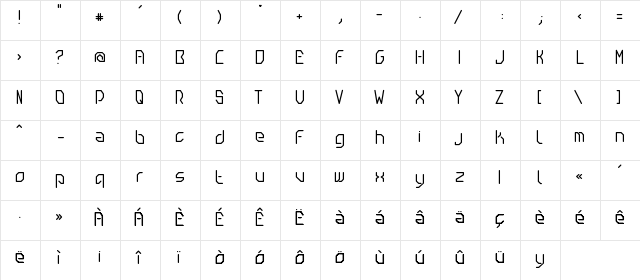
gibi Regular
Design Context for gibi Typeface
gibi takes a measured approach to typography — its balanced proportions and neutral character make it a reliable workhorse for both digital and print work.